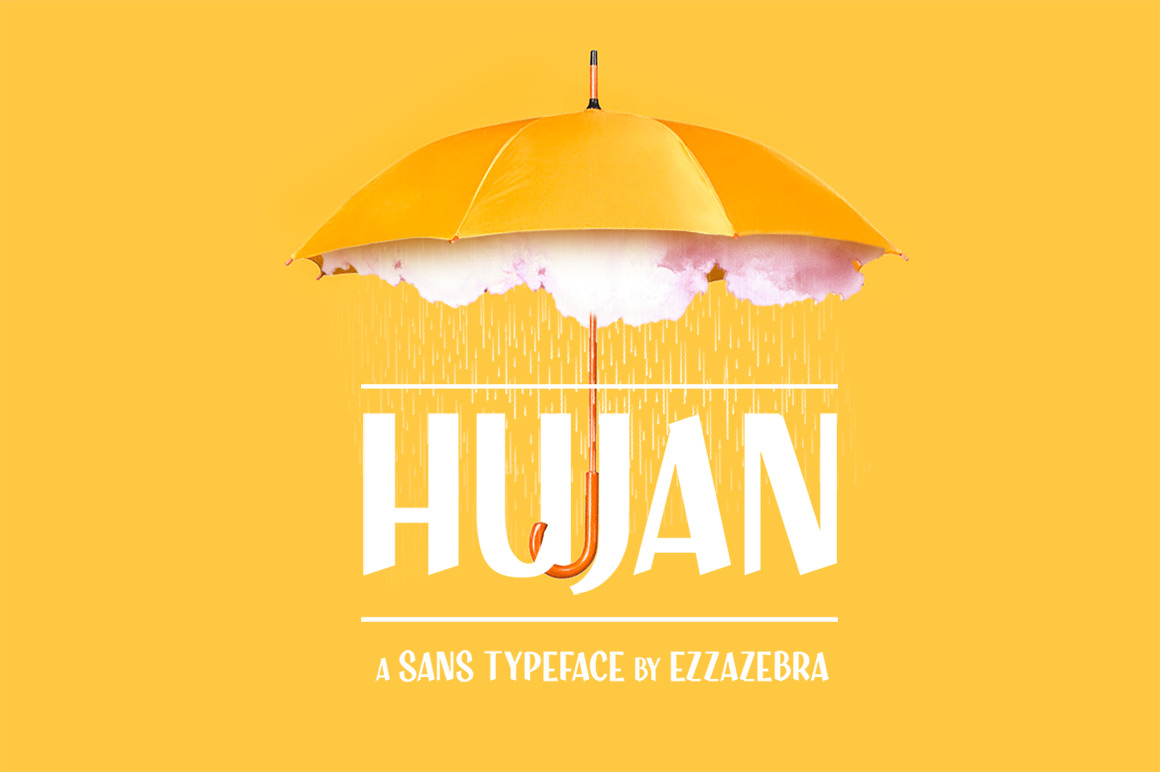
Hujan Typeface
The HUJAN Typeface is a sans-serif that i created when long raining in my city. The romantic and beautiful feel create this theme. The shape is a clean with ynamic semi-bold stroke. The fonts language is Latin including Basic, Western, Central Euro, South Euro. I represented the typeface with a digital imaging, so maybe you can ask me too to create some works like what I share in the pictures.